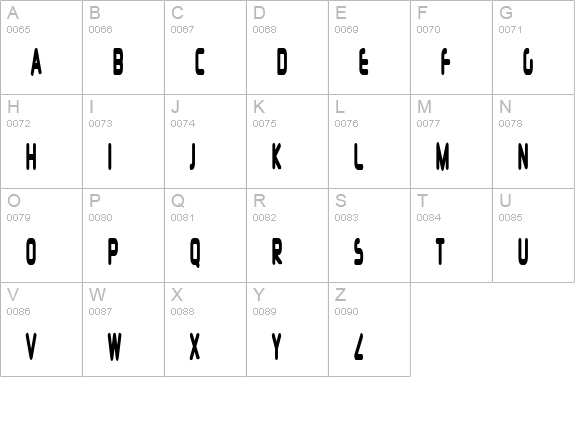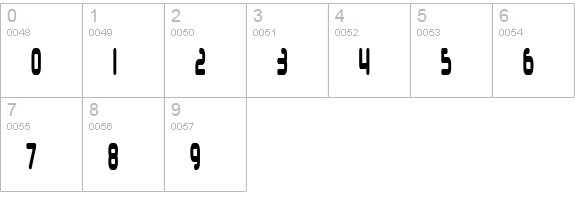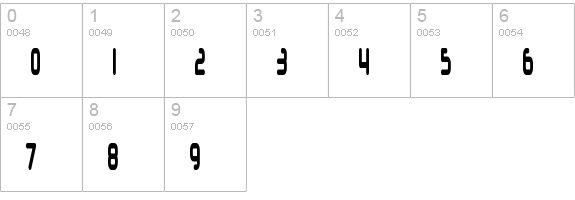
Silicon Carne Font Details
Silicon Carne font is a stunning display font that exudes a sense of modernity and sophistication. With its sleek lines and geometric shapes, this font is perfect for adding a contemporary touch to any design project. Whether you're creating a logo, branding materials, or even a website, Silicon Carne font will effortlessly elevate your work to the next level. What makes Silicon Carne font even more enticing is that it is freely available to download at FontsMarket.com. This means that you can easily access and use this exceptional font without any cost or hassle. It's a fantastic opportunity to enhance your design arsenal with a high-quality, stylish font that won't break the bank. Silicon Carne font features a versatile range of characters, from uppercase letters to numerals and punctuation marks. This extensive character set ensures that you have the freedom to explore various design possibilities and create truly unique compositions. The font's clean and precise design allows for excellent legibility, making it suitable for headlines, titles, and other prominent text elements. The contemporary aesthetic of Silicon Carne font is further enhanced by its balanced proportions and harmonious letterforms. Each character has been meticulously crafted to ensure a seamless and visually appealing display. Whether used in bold or regular weight, this font is sure to make a bold statement and capture the attention of your audience. Silicon Carne font is a true reflection of modern design trends, combining minimalism with a touch of artistic flair. Its versatility knows no bounds, making it an excellent choice for a wide range of design projects. Whether you're working on a corporate presentation, a magazine layout, or a social media campaign, Silicon Carne font will effortlessly add a touch of elegance and sophistication. With its free availability on FontsMarket.com, Silicon Carne font offers a valuable resource for designers and creatives alike. Don't miss the opportunity to download and explore this exceptional font today. Elevate your designs and captivate your audience with the sleek, modern aesthetic of Silicon Carne font.